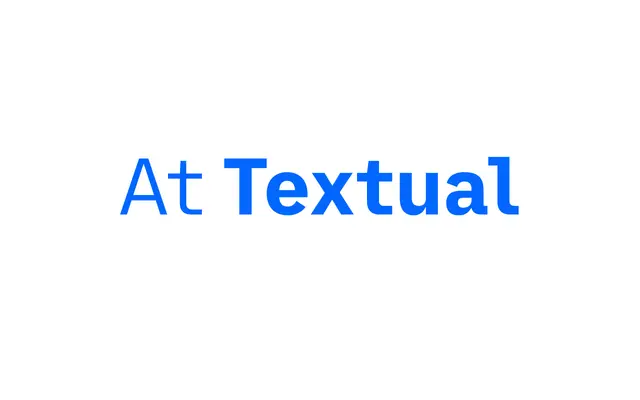
At Textual
At Textual specimen from Arillatype
A proportional text face by Pedro Arilla that borrows the texture and rhythm of monospaced type without its fixed spacing constraints.
Designed with reference to the precision of technical handbooks and monospaced fonts, it flows as a conventional text typeface across six weights from Light to Bold, plus a Retina cut optimised for high-density screens. The family ships with 12 styles, a 855-glyph character set covering 279 languages, and an extensive OpenType feature set including small caps, old-style figures, circled numbers and fractions. Variable font files are included with the full family purchase.
Draws directly from the texture and rhythm of monospaced fonts but functions as a proportional text typeface; the humanist sans classification fits its blend of technical precision and fluid readability.